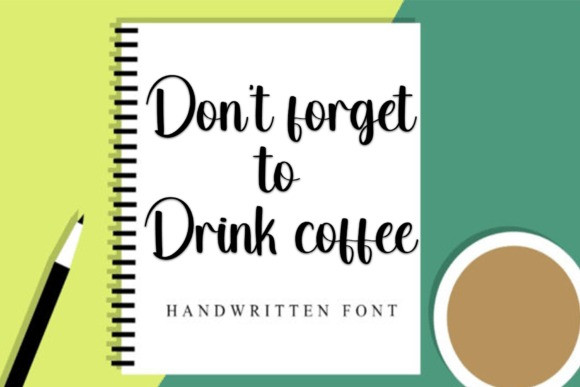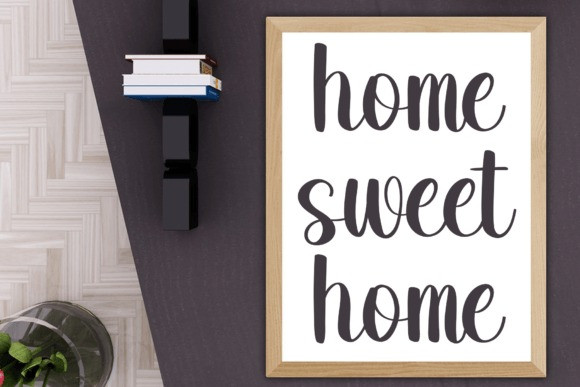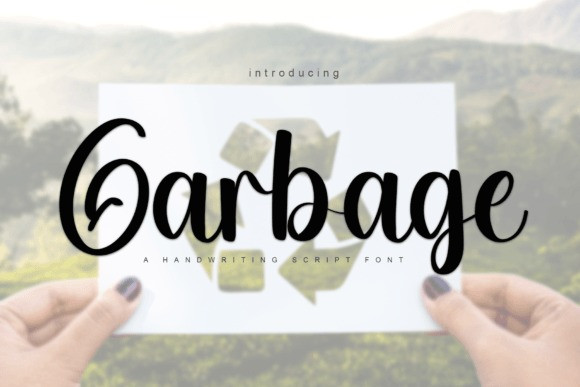
Garbage Script Font
Garbage Script Font is a unique, round lettered handwritten font. This font can be used to write titles, invitations, letters, and many other types of products.